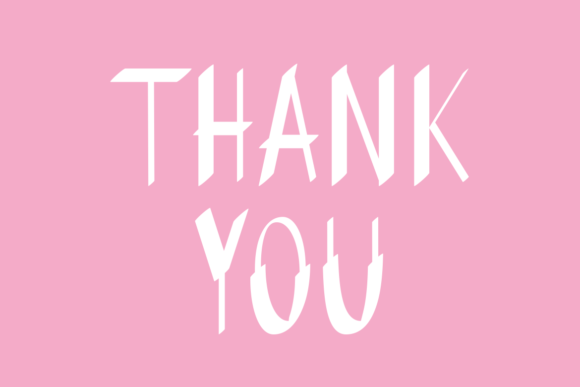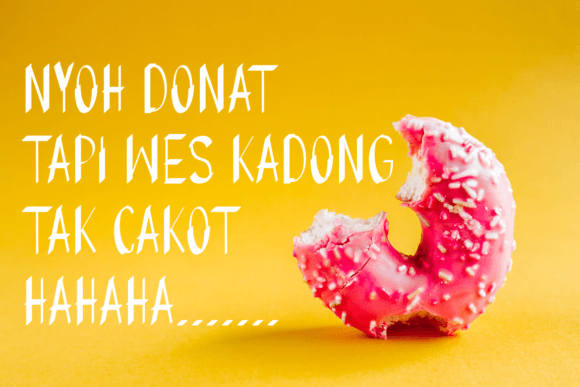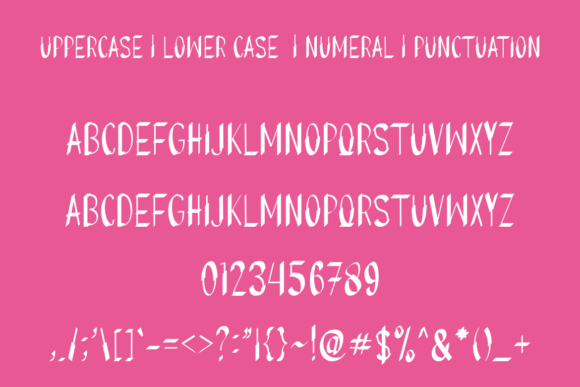
The Magic of Docomo Jujo Font: A Designer’s Delight
I’ll never forget the time I was working on a branding project for a trendy coffee shop. I had a clear vision of the overall aesthetic, but there was one thing missing – the perfect font. I scoured the internet, tried out countless options, but nothing seemed quite right. That was until I stumbled upon the lovely Docomo Jujo font. ✨ It was like a breath of fresh air, infusing my design with a unique and beautiful touch that brought the entire project to life!
An Honest Review of Docomo Jujo Font
- ✨ Timeless handwritten feel that’s perfect for creating eye-catching logos, branding, and quotes
- ✅ Unique and beautiful touch to every letter, making your design stand out
- 💫 Highly versatile and can be used for a wide range of creative projects
- 🎨 Perfect for designers, crafters, and creative hobbyists looking for a special font
While Docomo Jujo is an amazing font, there are a few things to keep in mind: 🤔
- ⚠️ Some letters may have slight inconsistencies in terms of spacing and sizing, which can affect the overall flow of your text
- ⚠️ Limited availability of stylistic alternates and glyphs, which might limit your creative options
The Story Behind Docomo Jujo Font
Legend has it that Docomo Jujo was created by a Japanese designer who wanted to craft a font that captured the essence of traditional Japanese calligraphy. With its unique and beautiful touch, Docomo Jujo has become a beloved font among designers and creative hobbyists worldwide.
Q: What type of projects is Docomo Jujo best suited for?
A: Docomo Jujo is perfect for creating eye-catching logos, branding, and quotes, as well as any project that requires a unique and beautiful handwritten touch.